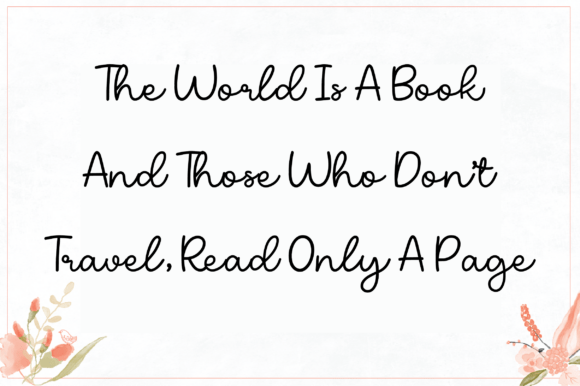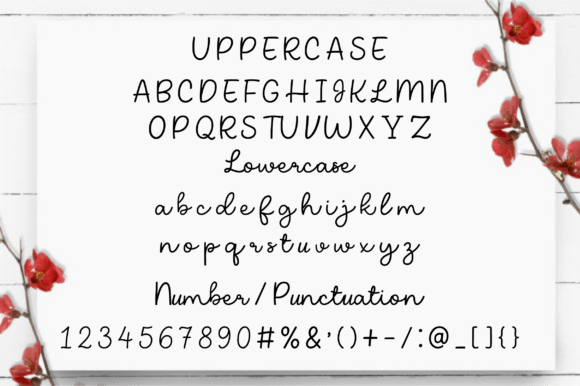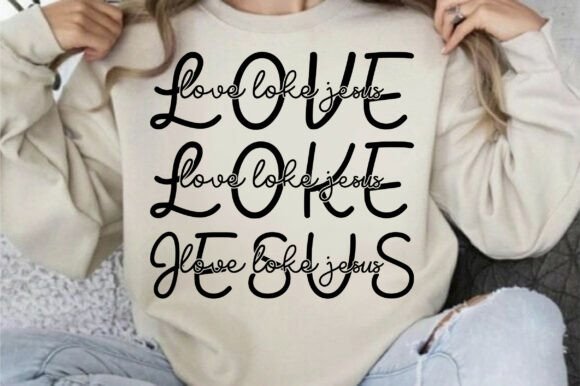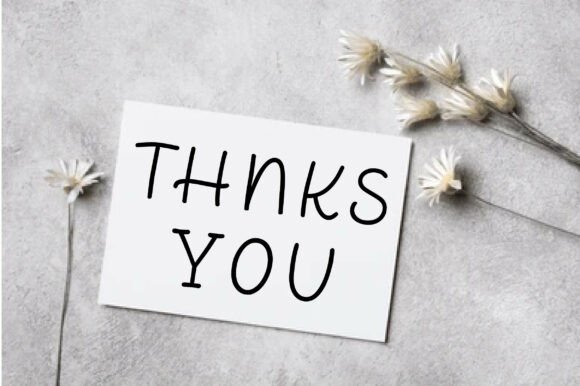
Aureline Script Font: Elevate Your Designs with Elegance and Sophistication
In the world of typography, a well-crafted font can make all the difference in creating visually stunning designs. For designers and crafters looking for a font that exudes elegance and sophistication, Aureline Script Font is an excellent choice. This clean and smooth handwritten font is perfect for a variety of design projects, from logos and cards to invitations, quotes, and branding initiatives.
The Characteristics of Aureline Script Font
Aureline Script Font boasts a simple and natural flow that gives every design a personal and elegant touch. Its clean lines and smooth curves create a beautiful, handwritten aesthetic that is both modern and timeless. The font’s classic feel makes it suitable for a wide range of applications, from traditional to contemporary designs.
Why Choose Aureline Script Font?
So, what sets Aureline Script Font apart from other fonts? Here are a few reasons why designers and crafters love this font:
- Versatility: Aureline Script Font is incredibly versatile, making it perfect for various design projects, including logos, business cards, invitations, and more.
- Elegance: The font’s smooth and flowing lines add an air of sophistication to any design, making it ideal for high-end branding projects.
- Readability: Aureline Script Font is highly legible, ensuring that your message is conveyed clearly and effectively.
- Uniqueness: With its distinctive, handwritten feel, Aureline Script Font helps your designs stand out from the crowd.
Aureline Script Font is a valuable addition to any designer’s or crafter’s toolkit. Whether you’re creating:
- Logos: Aureline Script Font is perfect for creating custom logos that reflect your brand’s personality and style.
- Invitations: Add a touch of elegance to your invitations, whether it’s for a wedding, birthday, or other special occasion.
- Branding materials: Use Aureline Script Font to create cohesive branding materials, such as business cards, letterheads, and packaging.
- Quotes and posters: The font’s smooth lines and elegant feel make it perfect for creating inspirational quotes and posters.
Tips for Using Aureline Script Font
To get the most out of Aureline Script Font, here are a few tips to keep in mind:
- Pair with contrasting fonts: Combine Aureline Script Font with a contrasting font to create visual interest and hierarchy.
- Experiment with colors: Try pairing Aureline Script Font with different colors to add depth and emotion to your design.
- Pay attention to spacing: Ensure that your text is properly spaced to maintain readability and flow.
Aureline Script Font is a beautiful, elegant, and versatile font that can elevate your designs to the next level. Its smooth lines, natural flow, and classic feel make it perfect for a wide range of applications. Whether you’re a designer or crafter, Aureline Script Font is an excellent addition to your toolkit. So why not give it a try and see how it can transform your designs?